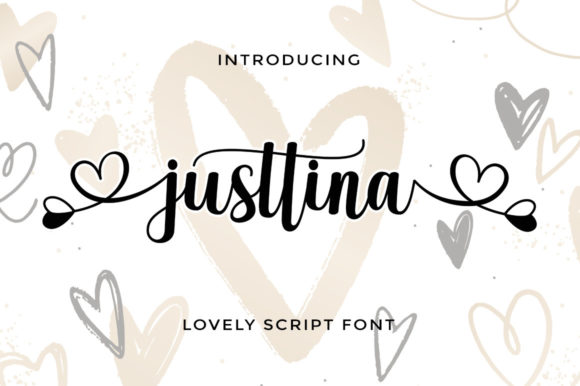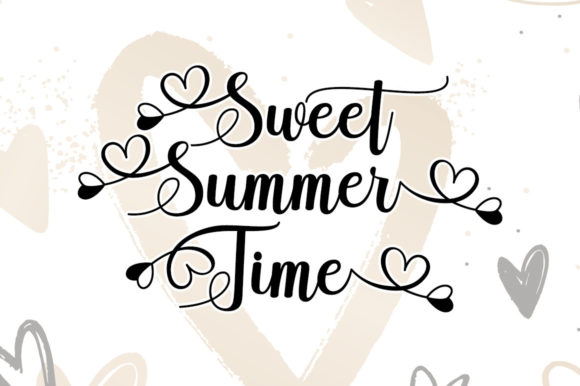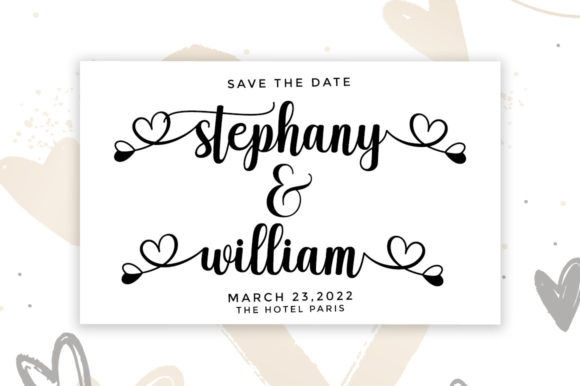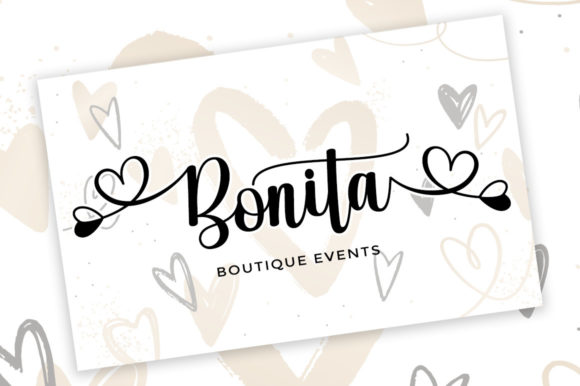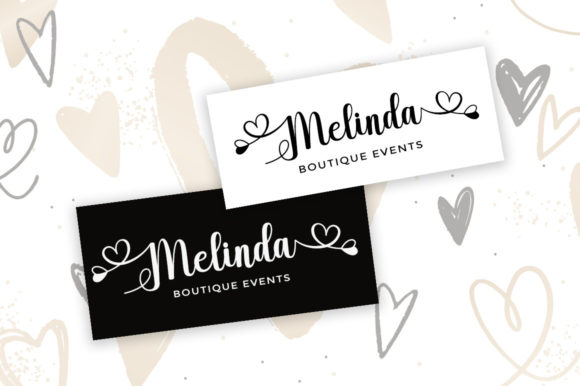
Justtina Script Font
About Justtina Script Font
Justtina Script is a gorgeous and romantic script font. It will look stunning on any poster, flyer or print.